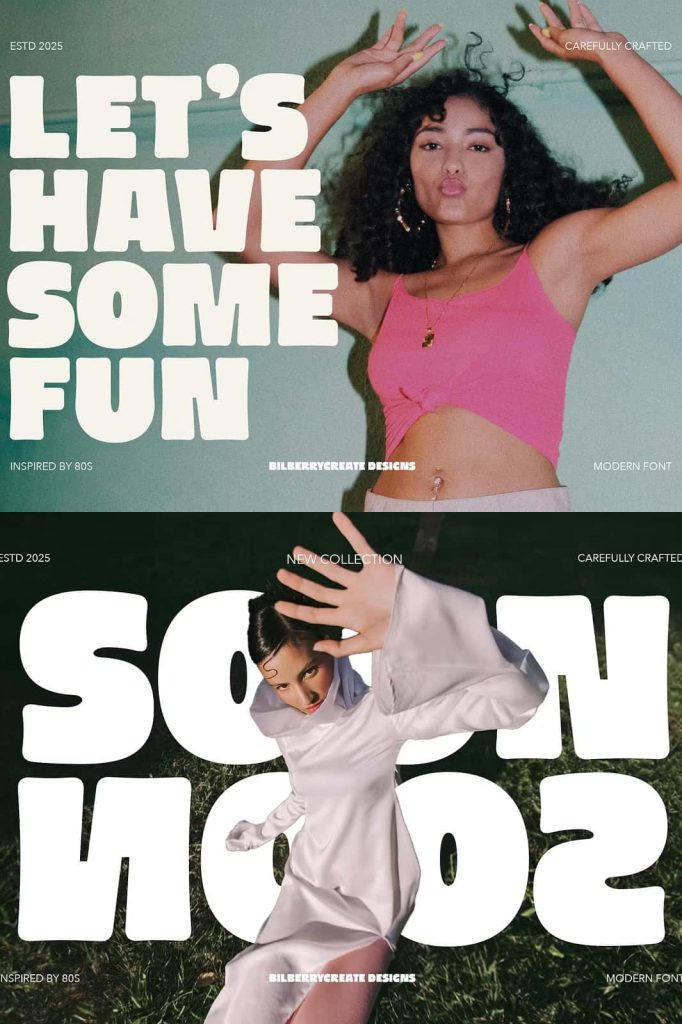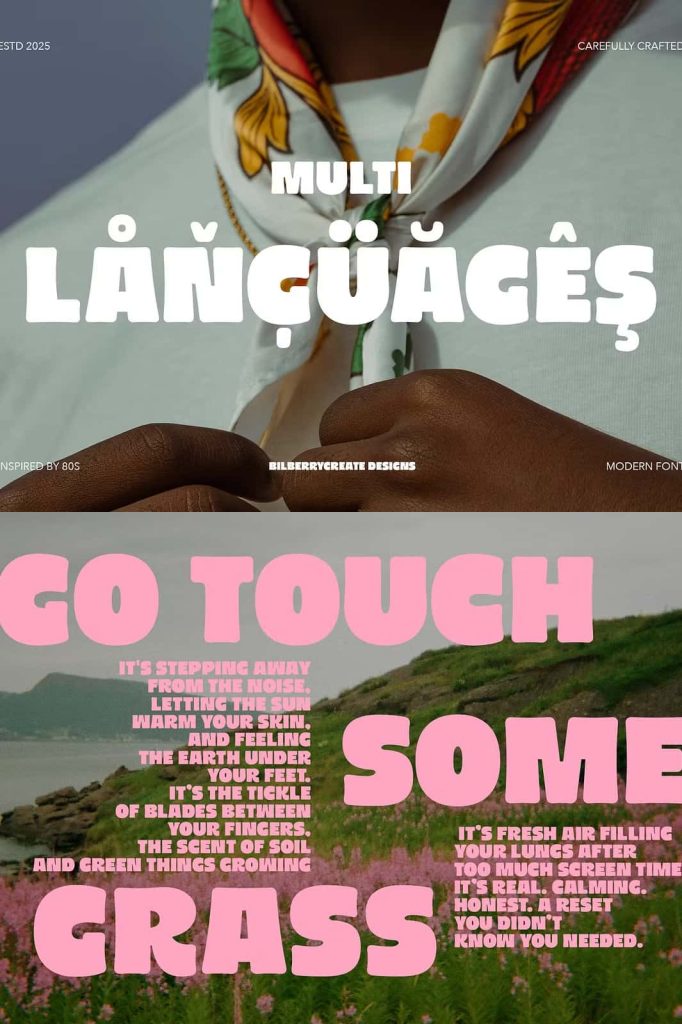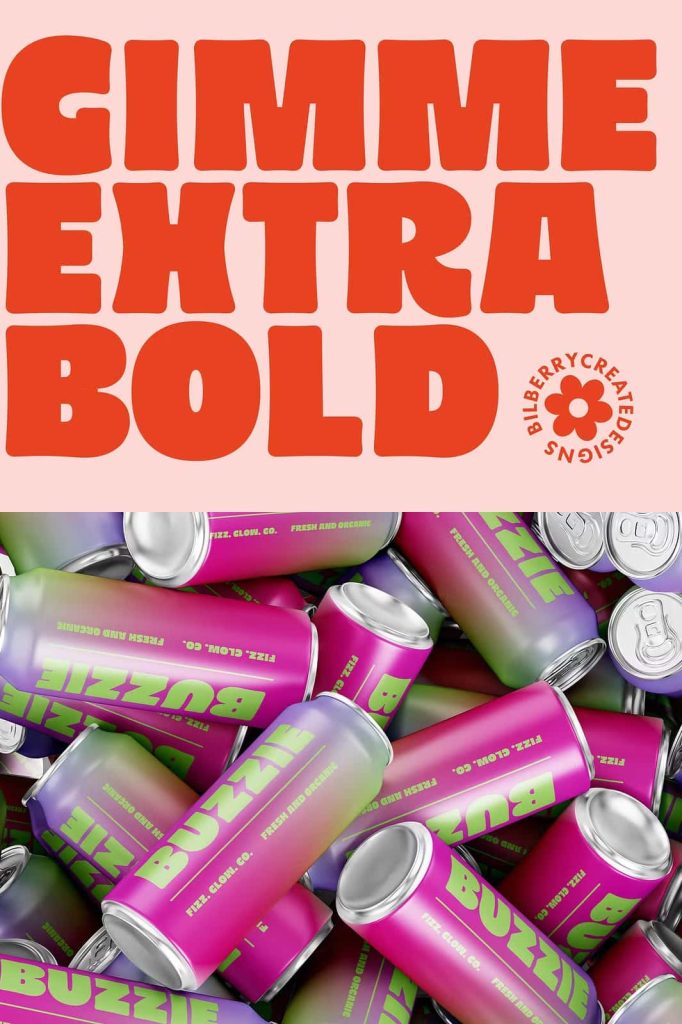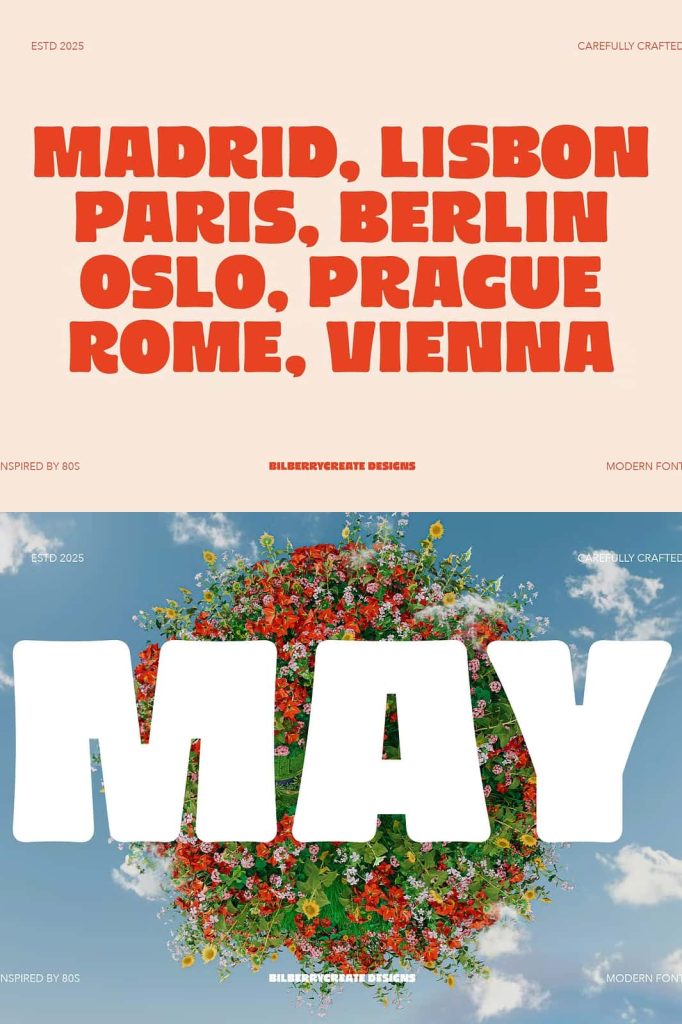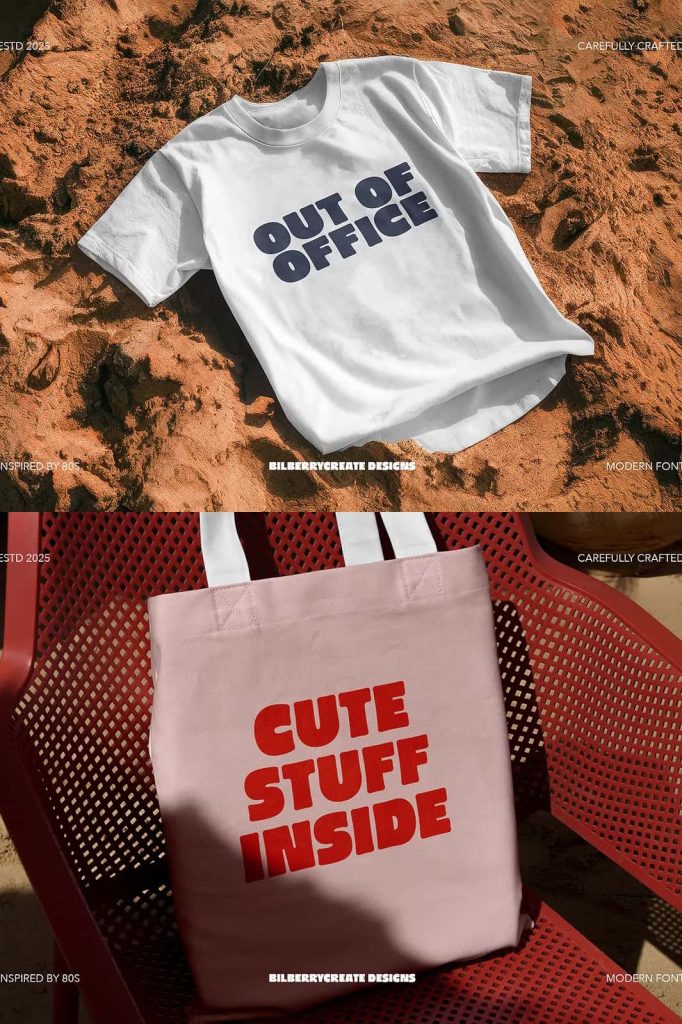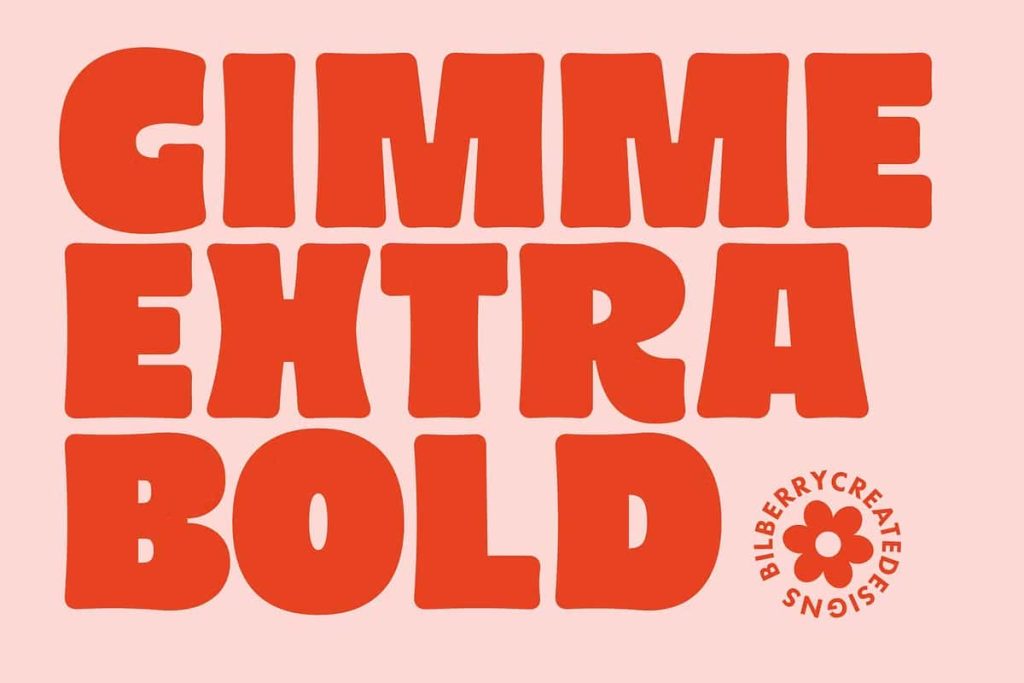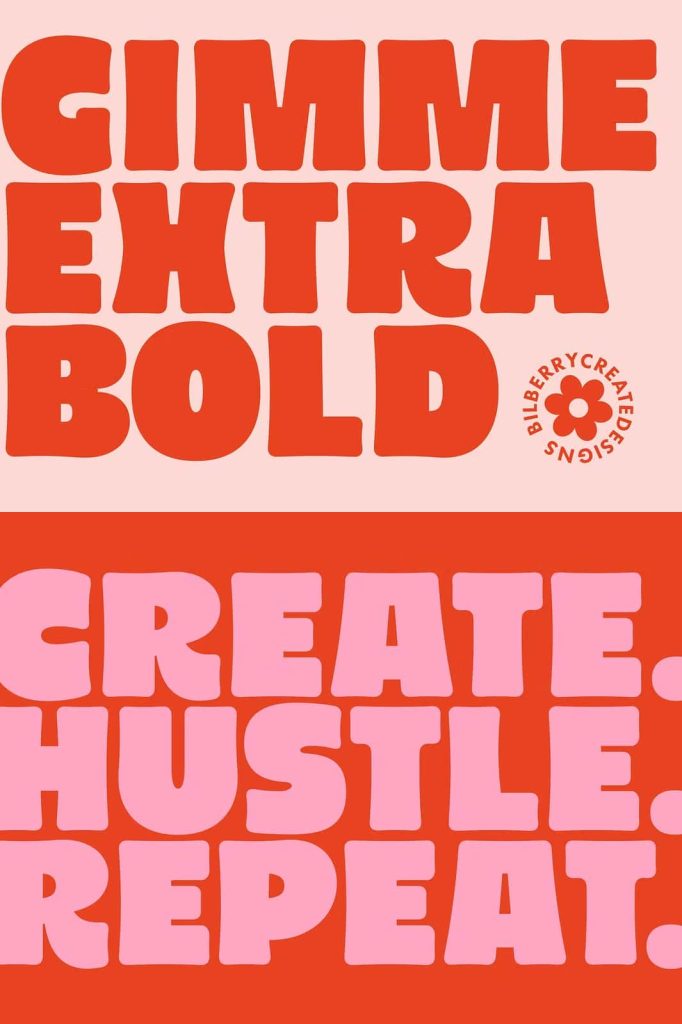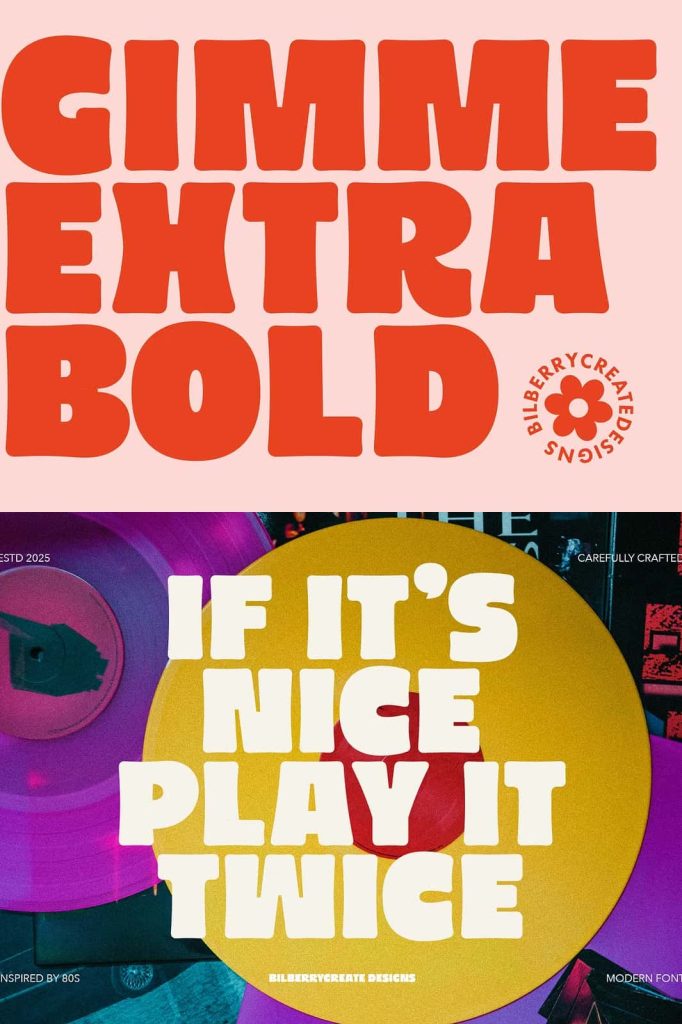
Gimme Extra Bold: A Groovy and Funky 80s-Inspired Display Font
Gimme Extra Bold is a bold display font inspired by the vibrant visual culture of the 1980s. Bursting with groovy curves, funky shapes, and confident energy, this typeface is designed to make a strong statement. It captures the playful spirit and expressive freedom of retro design while delivering the impact needed for modern creative projects.
Created to enhance the visual appeal of digital and print designs, Gimme Extra Bold helps designers transform ordinary typography into eye-catching compositions. Its bold personality and retro influence make it a powerful tool for anyone looking to add character, color, and uniqueness to their work.
Inspired by the Bold and Expressive Style of the 1980s
The 1980s were defined by fearless design, experimental typography, and vibrant visual expression. Gimme Extra Bold channels this era through thick letterforms, rounded edges, and playful proportions. Every character reflects a sense of movement and rhythm, creating typography that feels energetic and full of life.
Rather than simply imitating retro styles, Gimme Extra Bold reimagines them for contemporary use. The font blends nostalgic aesthetics with modern construction, ensuring it performs well across a wide range of applications while still delivering authentic 80s vibes.
Groovy Shapes with Funky Personality
The groovy and funky nature of Gimme Extra Bold makes it instantly recognizable. Its exaggerated forms and bold structure demand attention, making it ideal for display use. The font adds visual excitement and personality, turning text into a central design element rather than a supporting detail.
Designed to Enhance Digital and Print Designs
Gimme Extra Bold was created to help designers make their digital images and printed materials more beautiful and distinctive. Its strong visual presence ensures that headlines, titles, and key messages stand out clearly. Whether used on screens or in print, the font delivers consistent impact and readability.
The bold weight and smooth curves allow the font to perform especially well in large sizes, where its character and details truly shine. Designers can confidently use it to anchor layouts and create memorable visual impressions.
Perfect for Logos, Invitations, and Creative Projects
Gimme Extra Bold is highly versatile and supports a wide range of creative uses. It works exceptionally well for logo design, where its bold and playful style helps establish a strong brand identity. Brands that want to express fun, creativity, and retro influence can rely on this font to communicate their message clearly.
The font is also ideal for invitation cards, including weddings, birthdays, and special events. Its lively character brings a celebratory tone to invitations and greeting cards, making each design feel personal and joyful.
Ideal for Scrapbooking, Cards, and Party Decorations
Creative hobbyists and designers alike can use Gimme Extra Bold for scrapbooking, greeting cards, and party decorations. The font adds a playful and nostalgic touch to layouts, making memories feel even more special. Its bold shapes work well for banners, signs, and decorative elements that need to stand out.
Versatile for Packaging, Home Decor, and Fabric Printing
Gimme Extra Bold extends beyond digital design into physical products. It performs beautifully in packaging design, where its bold retro style helps products stand out on shelves. The font also works well for holiday gift packaging and themed decorations, adding a festive and joyful atmosphere.
In home decor and fabric printing, Gimme Extra Bold brings personality and creativity to cushions, posters, wall art, and apparel. Its strong letterforms maintain clarity and impact even when printed on textiles or large surfaces.
A Bold Font for Endless Creative Possibilities
Gimme Extra Bold is designed to support creativity without limits. Its expressive 80s-inspired style, combined with modern versatility, makes it suitable for countless design projects. From professional branding to personal crafts, the font adapts easily while maintaining its bold and funky identity.
If you are looking for a retro display font that delivers groovy energy, bold expression, and creative freedom, Gimme Extra Bold is the perfect choice. It empowers designers to create unique, memorable, and visually exciting work across digital and print media.